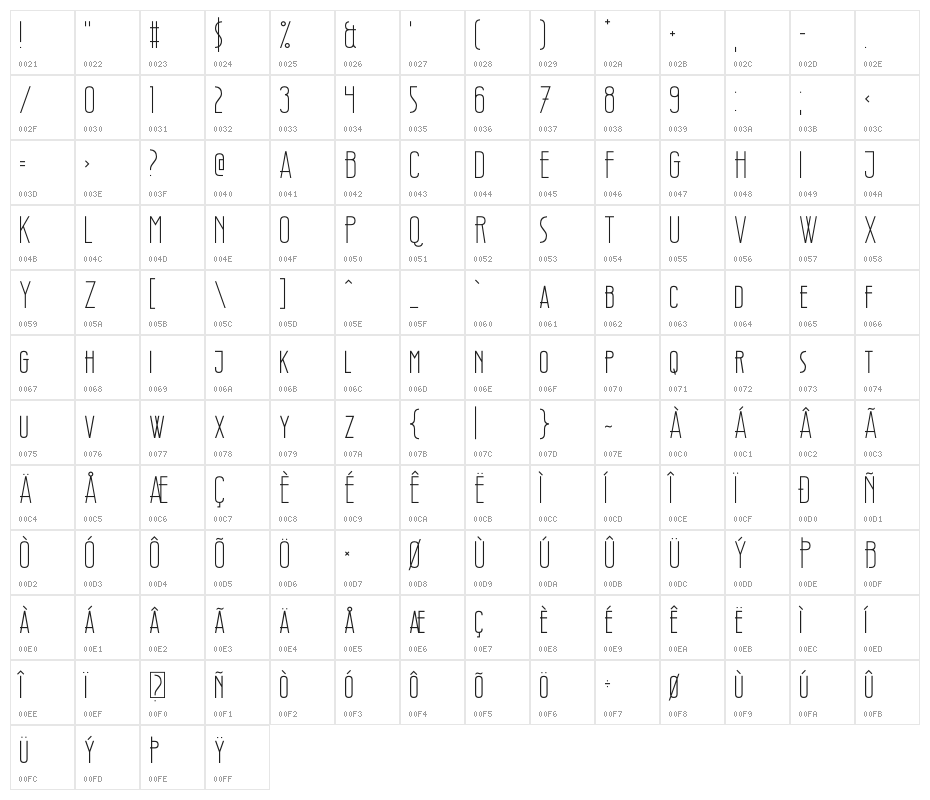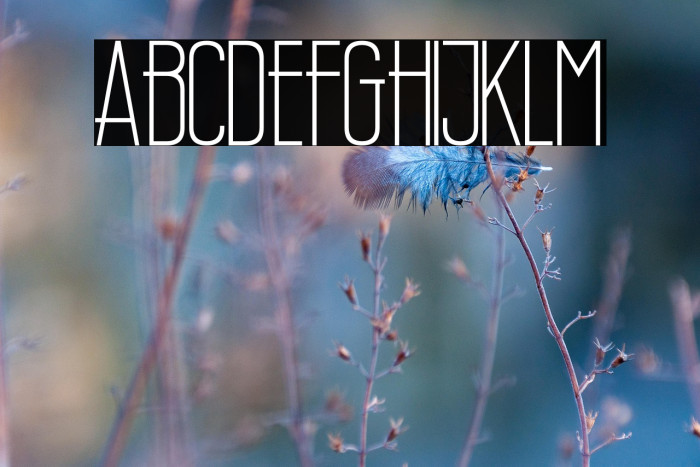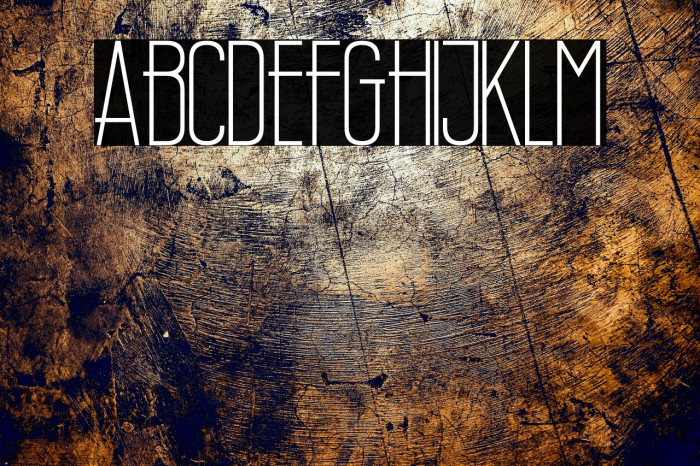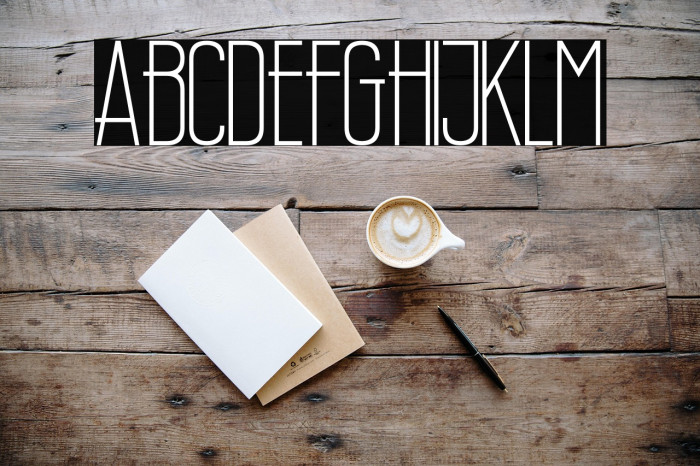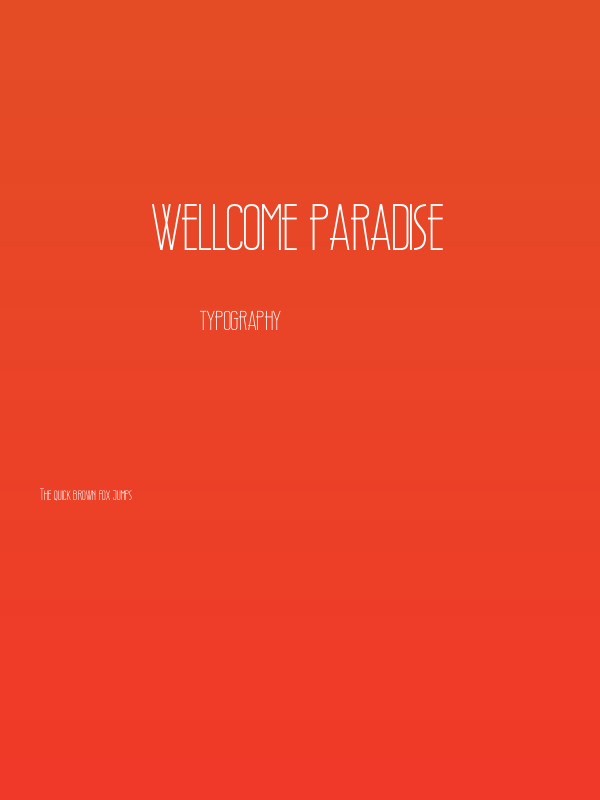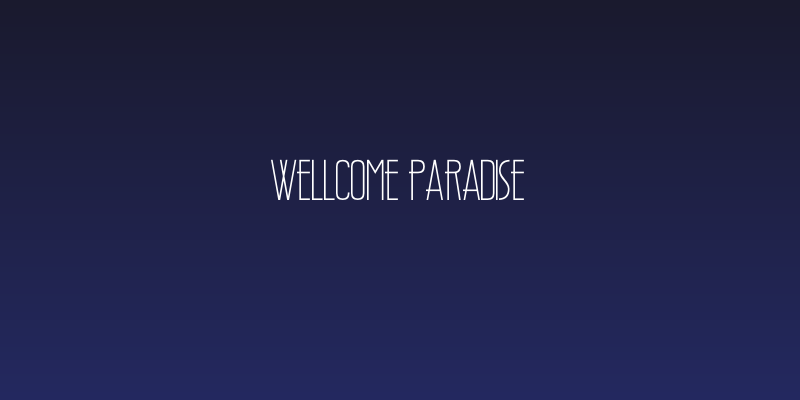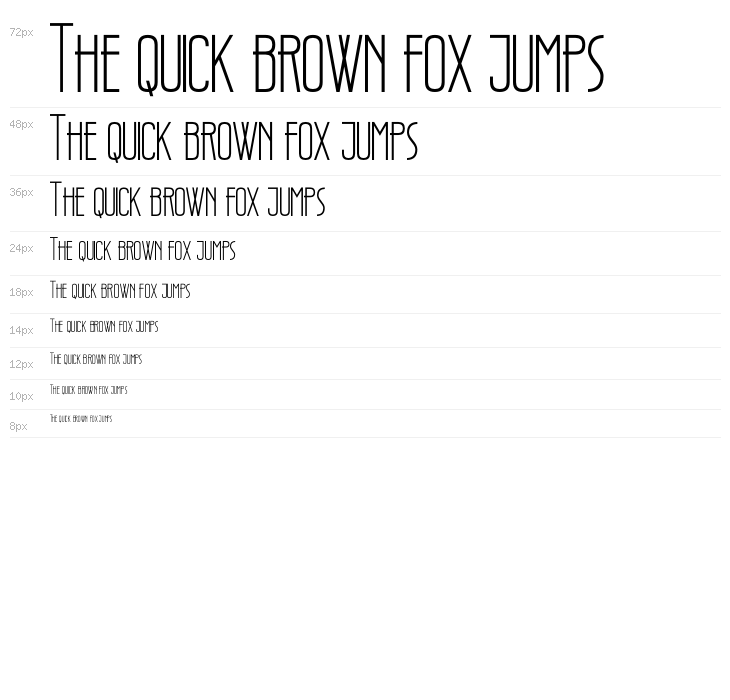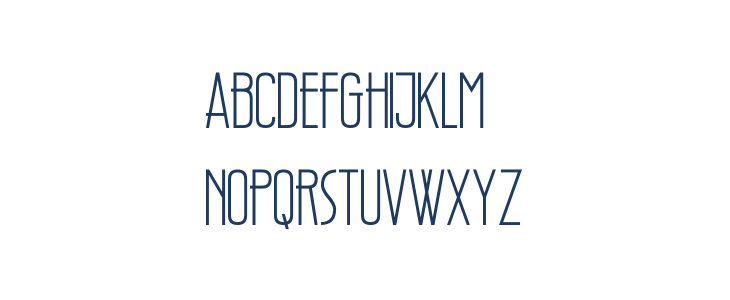
Wellcome Paradise Font
Wellcome Paradise Description
This font features a tall, narrow design with clean, straight lines and minimal curves, giving it a modern and sleek appearance. The uppercase and lowercase letters maintain a consistent height, contributing to a uniform and structured look. The numerals and special characters follow the same design principles, ensuring cohesion across all elements. The thin strokes and elongated forms create an elegant and sophisticated aesthetic, making it suitable for contemporary design projects.